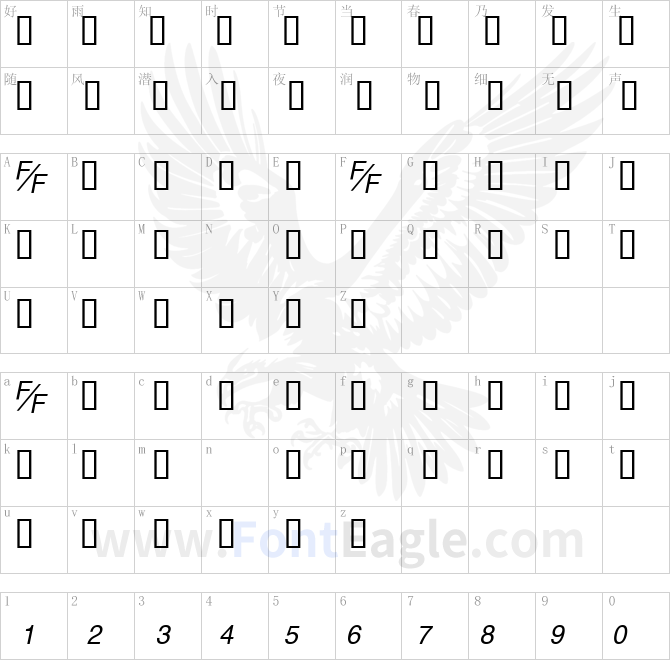
- Font name:HelvFE
- Font Subfamily ID:Altsys Fontographer 4.0.3 HelvFE Oblique
- Font Full Name:HelvFE Oblique
- Font Version:Altsys Fontographer 4.0.3 03.06.1994
- Postscript:HelvFEOblique